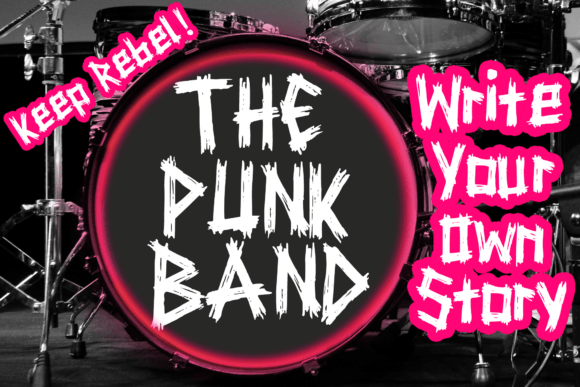
Punk Anarchy Font
Punk Anarchy is a cool punk, grunge and rock band display font. Punk Anarchy is great for creating cool designs that scream for attention: it’s ideal for movie posters, music posters, single covers, t-shirt designs, stickers, clothing, merchandise, and more. Fall in love with its incredibly cool style, and use it to create lovely designs!